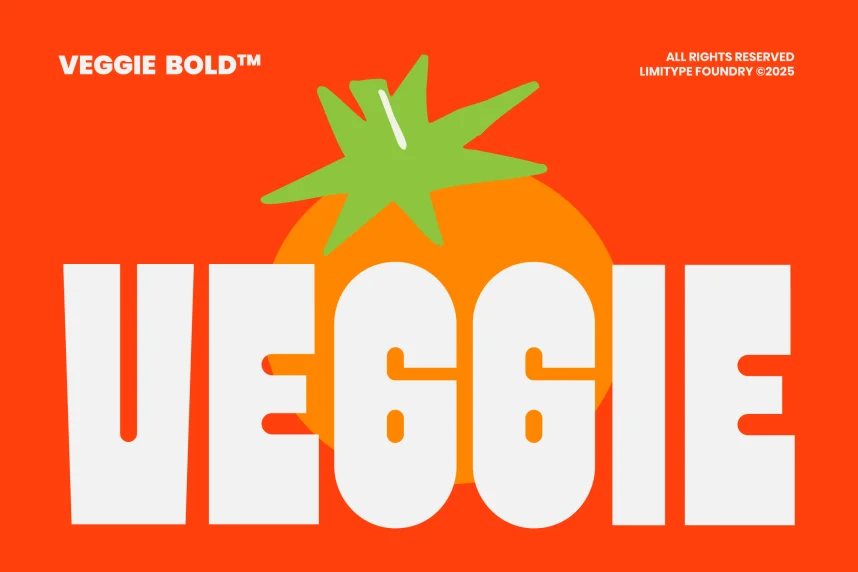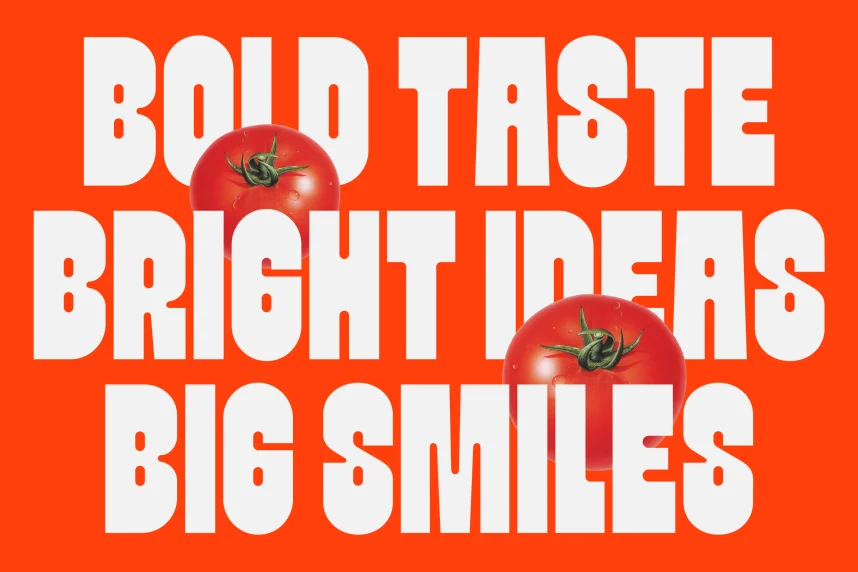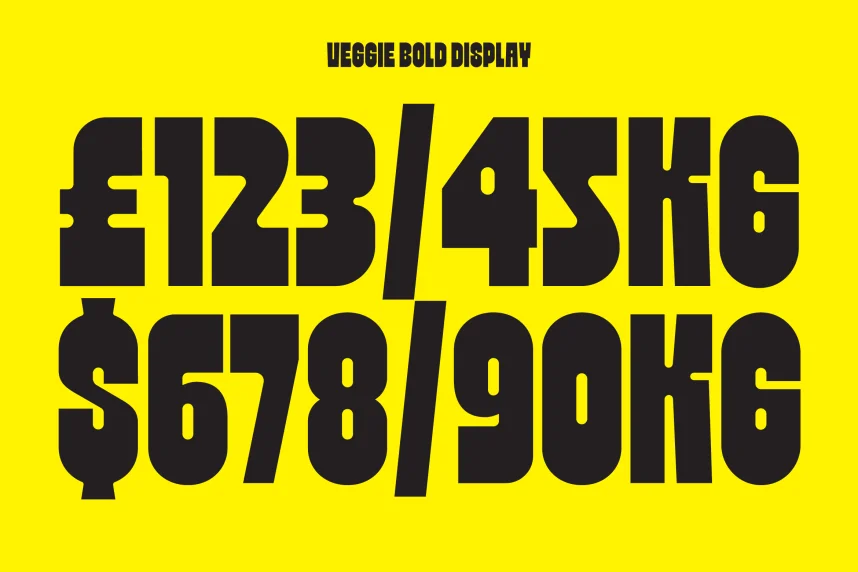
Veggie Bold Font helps designers create friendly, eye-catching text without sacrificing readability. Many playful fonts become hard to read in packaging and social media graphics, especially at smaller sizes.
Veggie is a bold display font with rounded shapes and thick strokes. The letterforms use soft curves and low contrast, making text clear and approachable. Spacing remains balanced to support short headlines and logo designs.